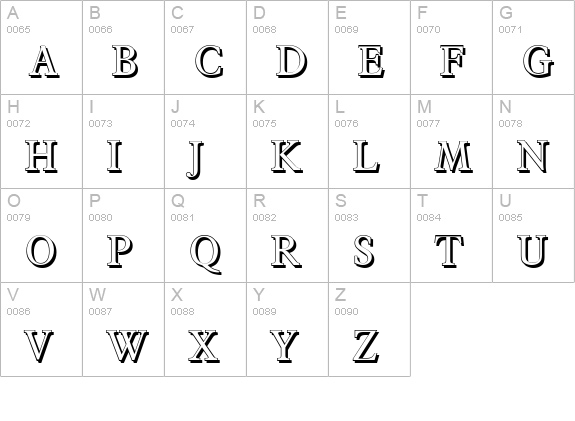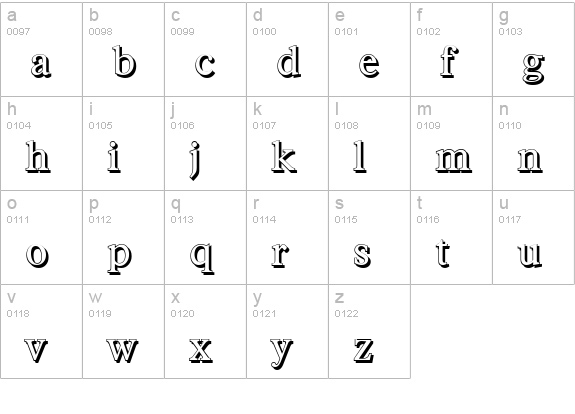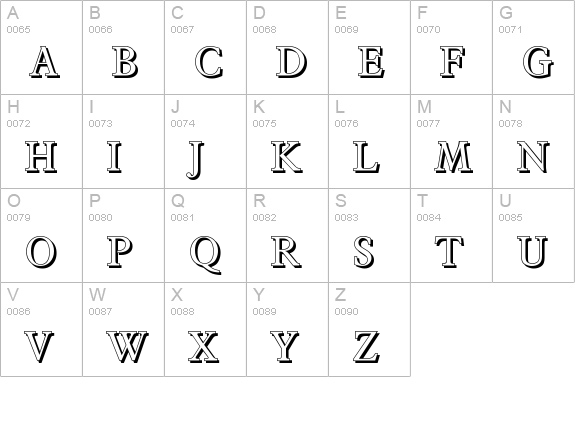
FranciscoShadow-Regular is the standard, neutral variant in the FranciscoShadow typeface family \xE2\x80\x94 well suited to general body text, paragraphs, and standard typographic work.
FranciscoShadow-Regular font is a stylish and modern typeface that brings a touch of elegance to any design project. This versatile font features a unique shadow effect that adds depth and dimension to your text. Whether you're creating a logo, poster, or website, FranciscoShadow-Regular is sure to make a statement. What's even better is that this font is available for free download at FontsMarket.com. That's right, you can easily access this premium font without having to spend a dime. So why wait? Elevate your designs with FranciscoShadow-Regular and stand out from the crowd today.